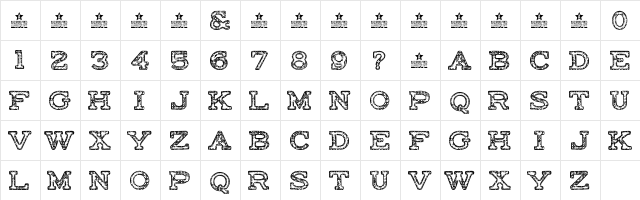
FACTORY Regular
| Foundry | BiLLY ARGEL FONTS |
| Designer | Billy Argel |
Design Context for FACTORY Typeface
FACTORY takes a measured approach to typography — its balanced proportions and neutral character make it a reliable workhorse for both digital and print work.